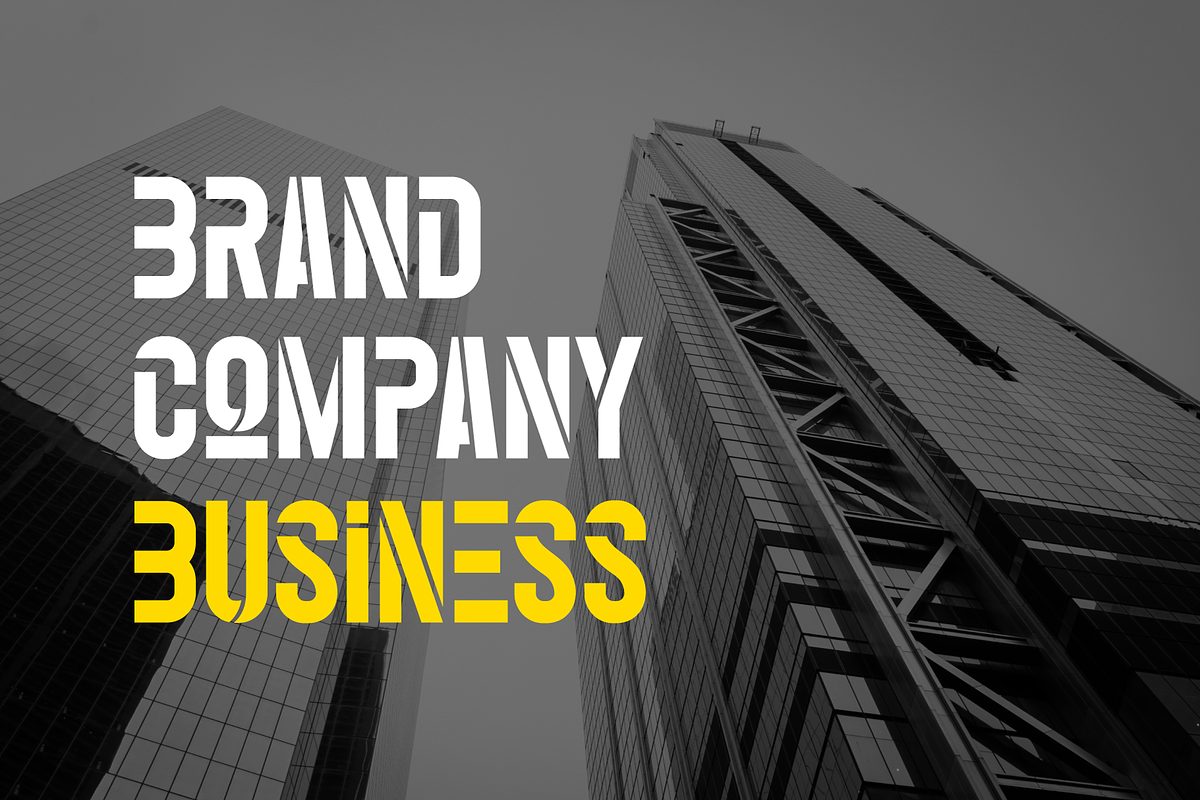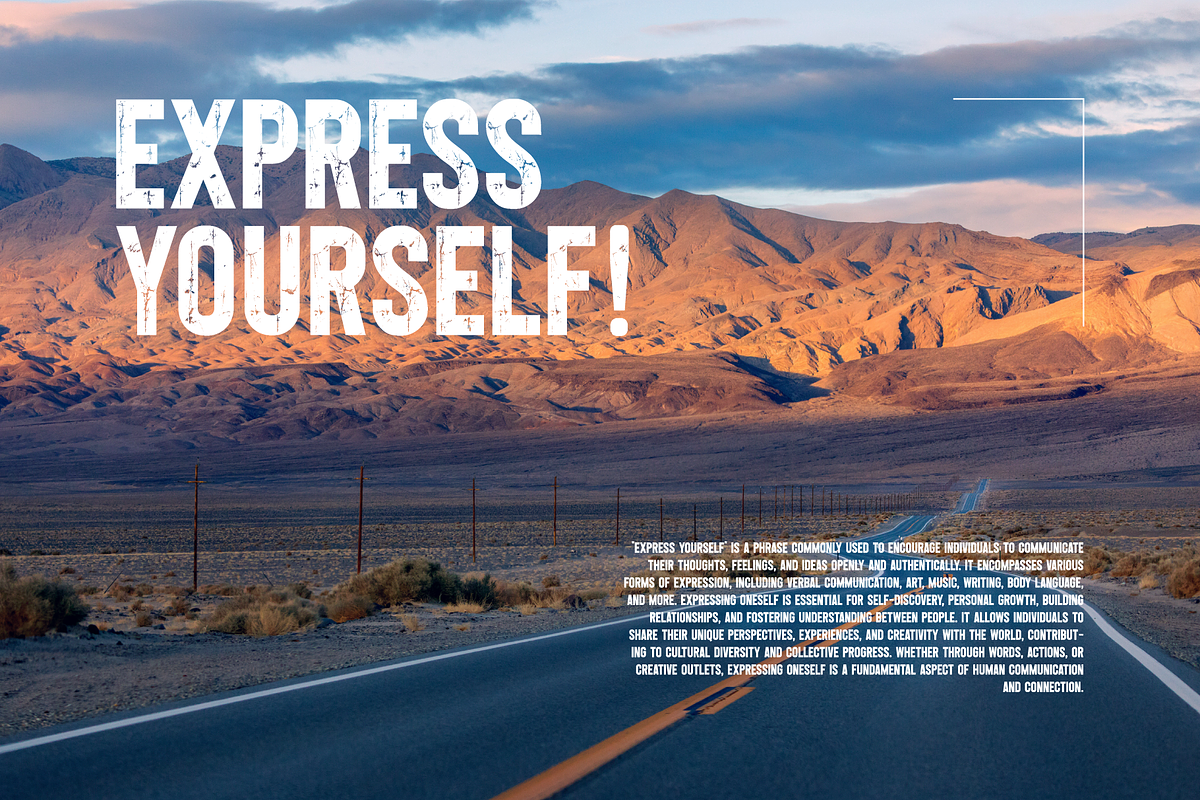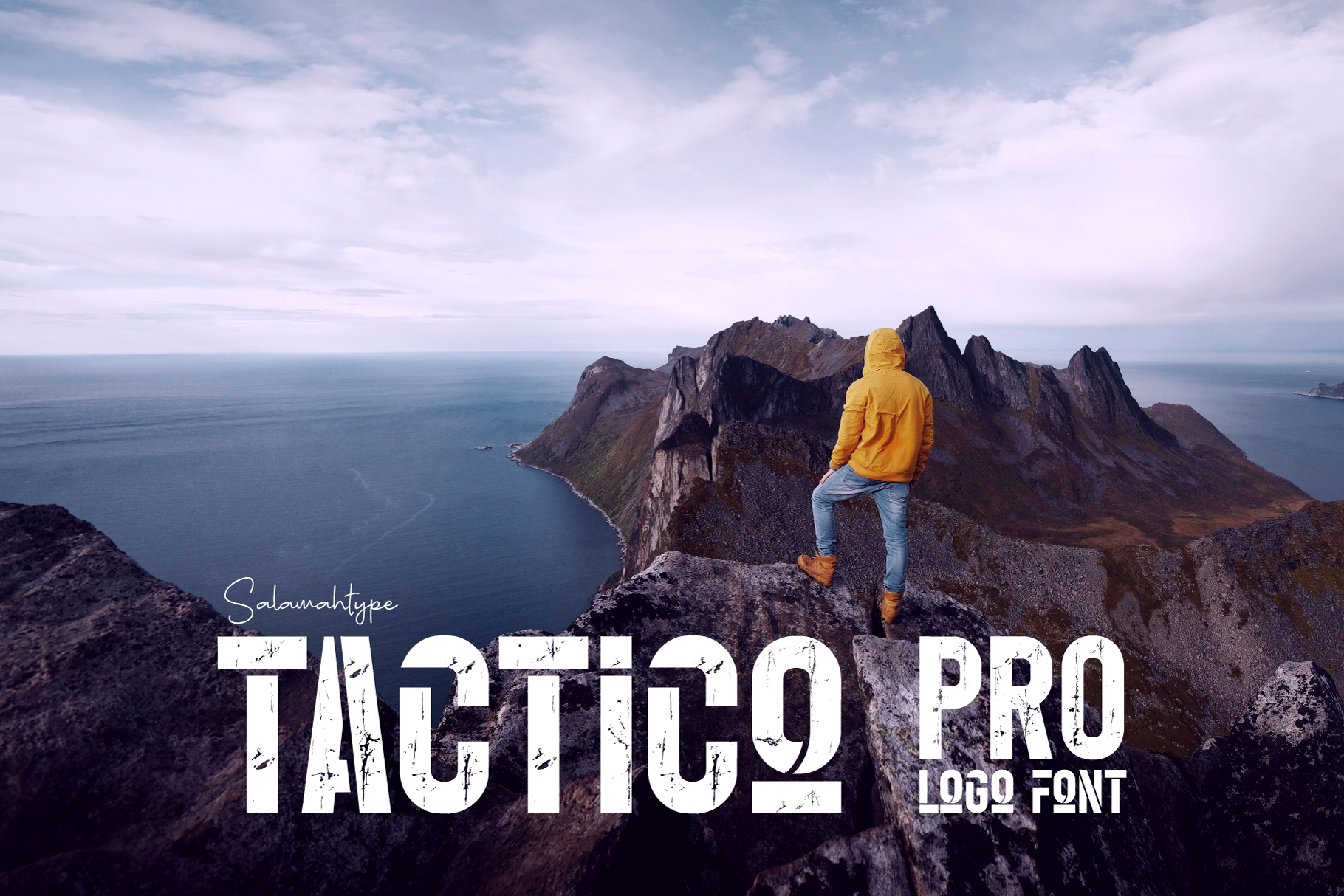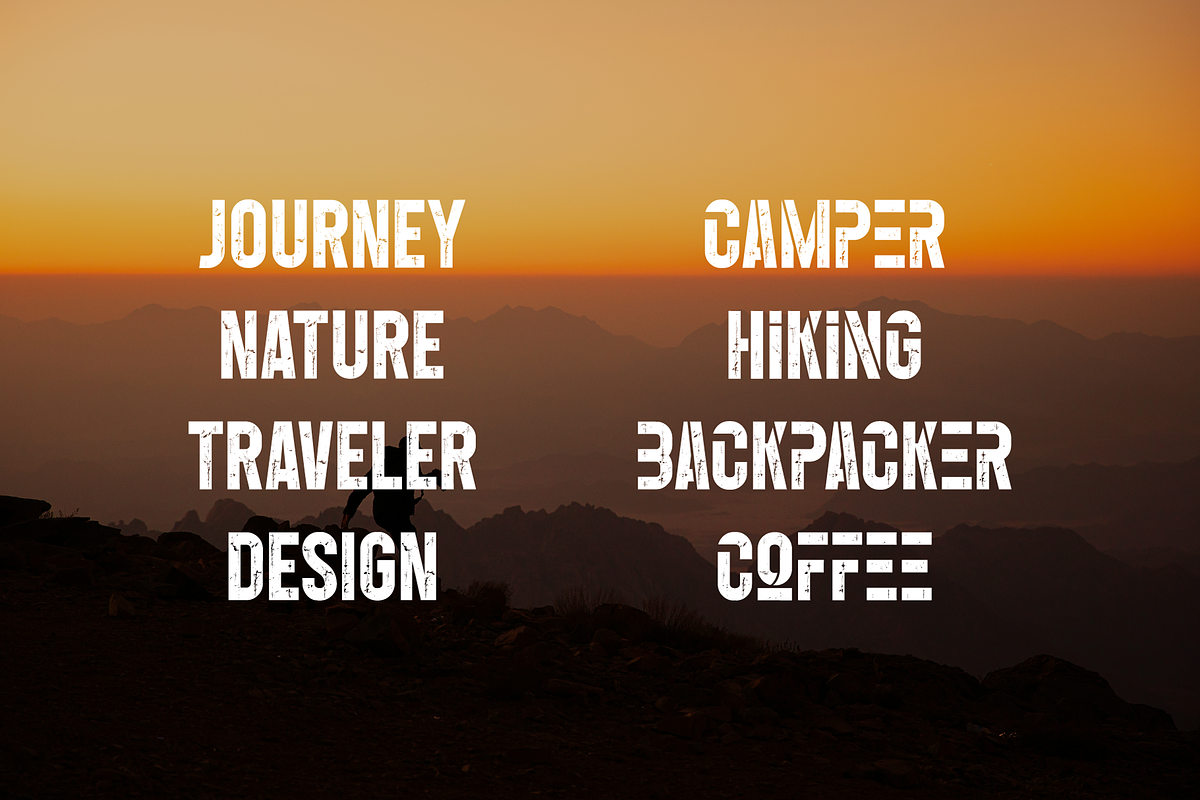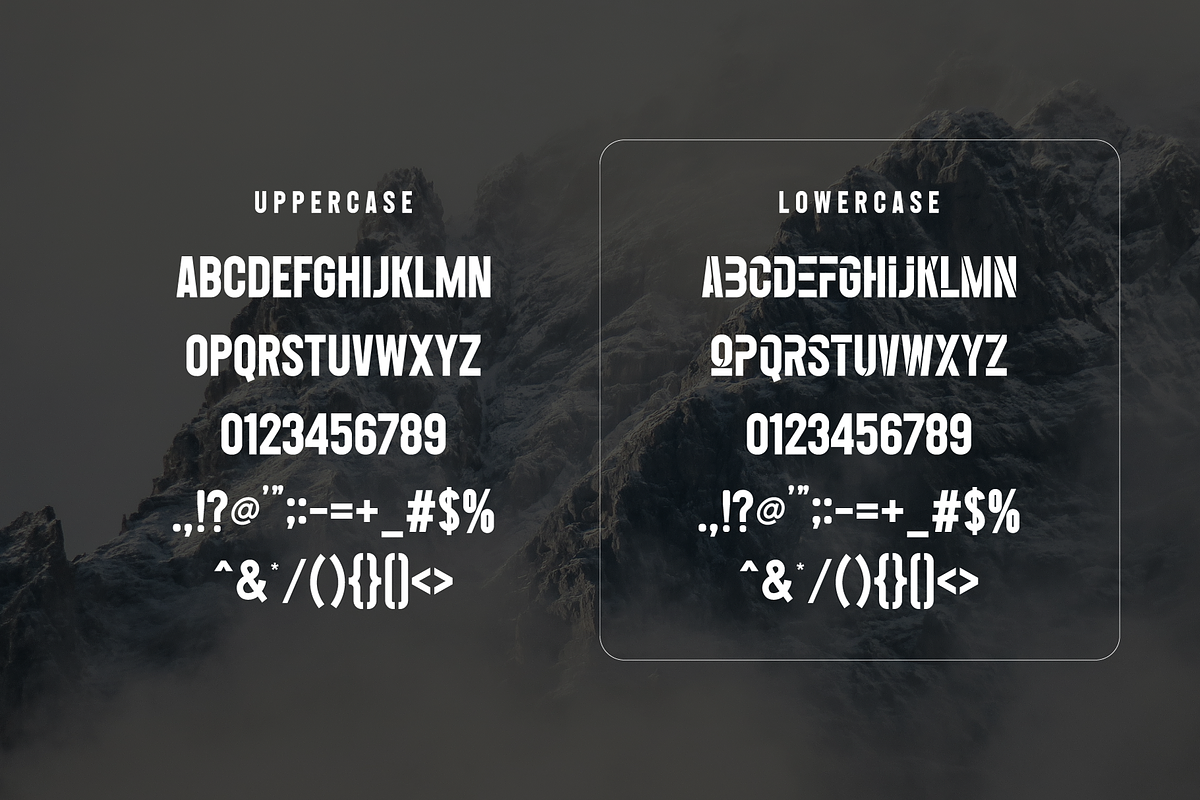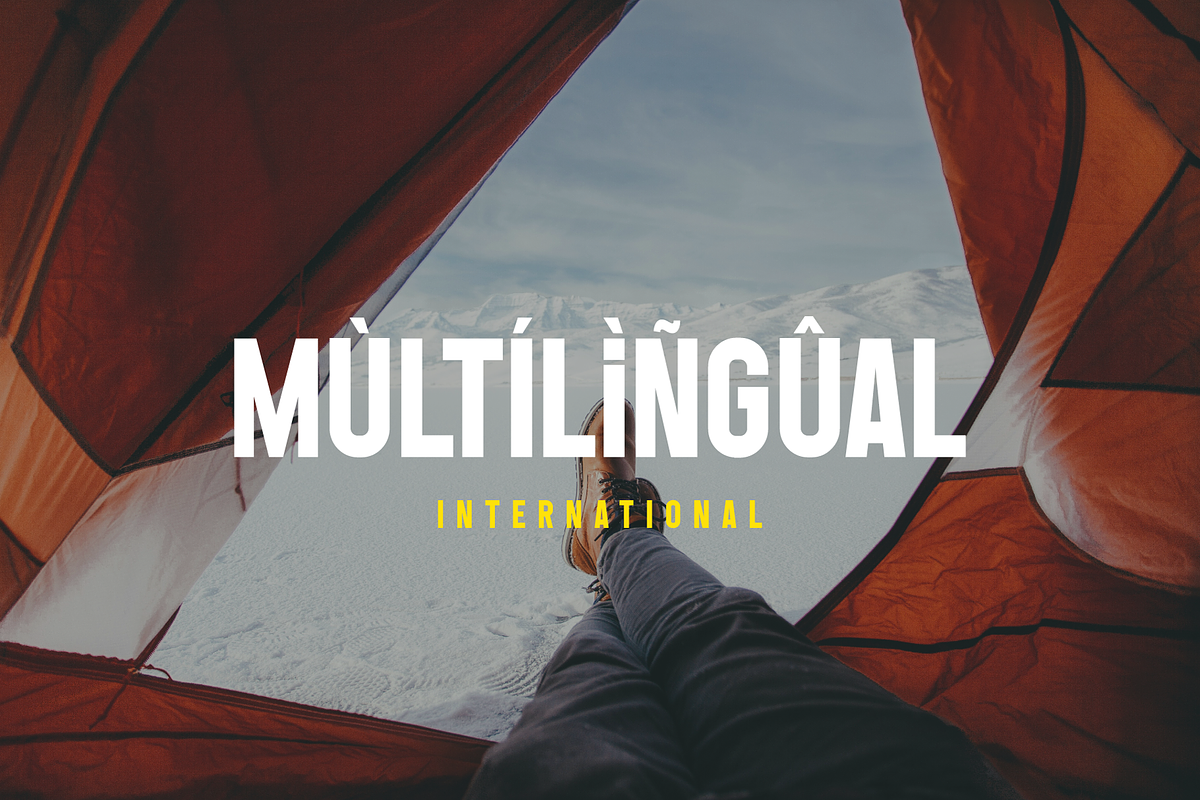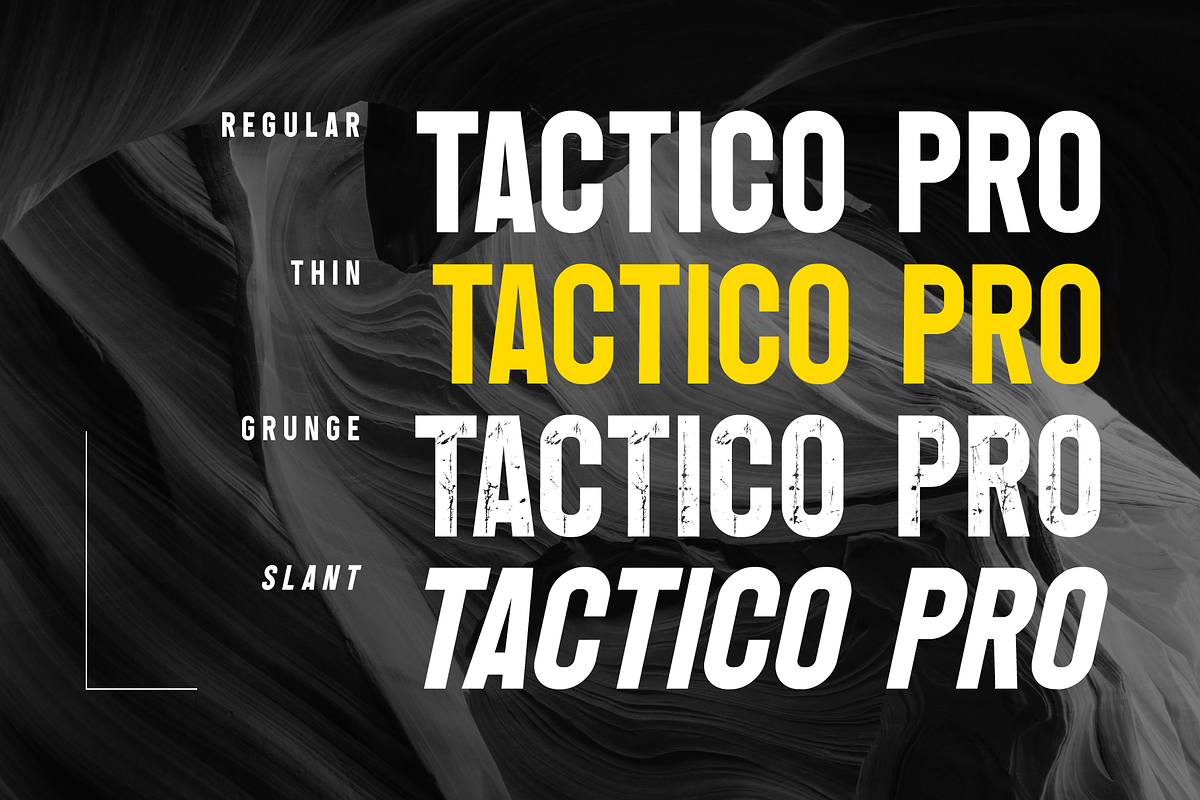
Tactico Pro - Bold Font
Tactico Pro is a bold and all-caps font. It emphasizes style to display font shapes like logos and is equipped with a grunge or distressed impression, which can be an alternative choice when using this font for design projects, branding logos, print media, product packaging, and more. In this font file, there are 4 styles: regular, grunge/distressed, thin, and slant.